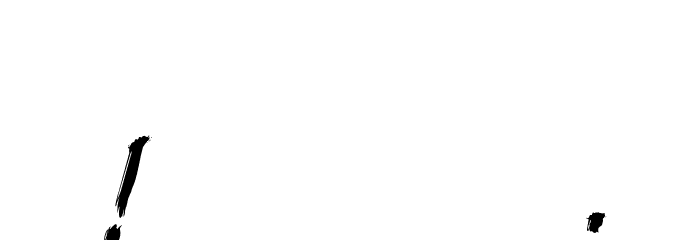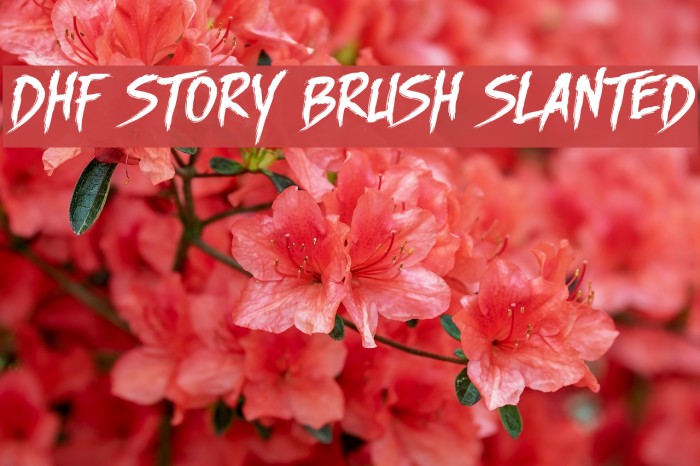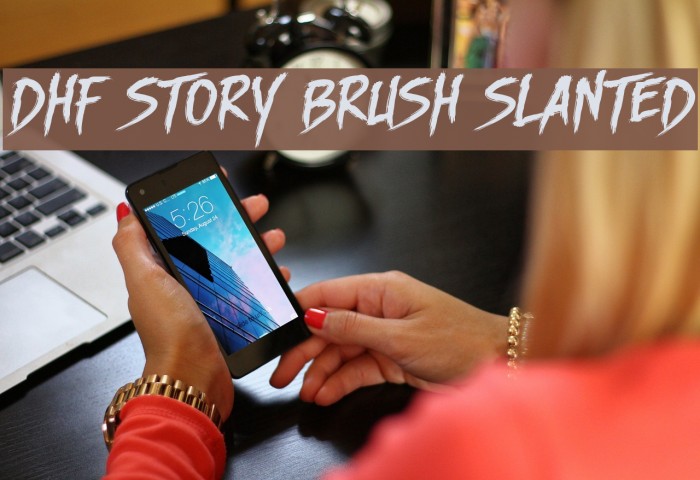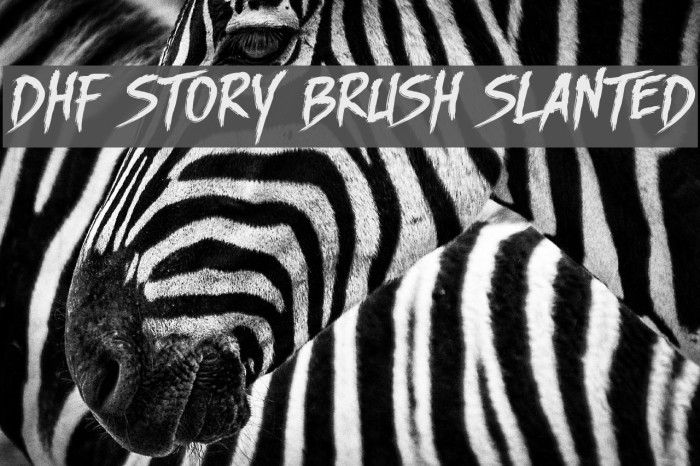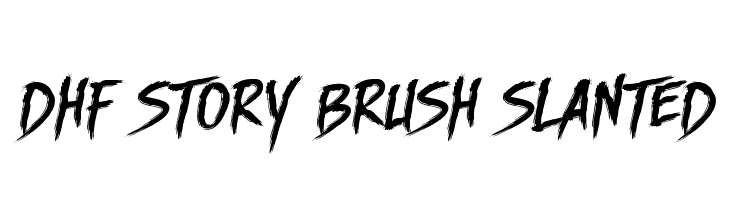
DHF Story Brush Slanted Font
This font features a dynamic and energetic brush style, characterized by its bold and expressive strokes. The letters are slanted, giving a sense of movement and fluidity, reminiscent of hand-painted signage or graffiti art. The uppercase and lowercase letters maintain a consistent style, with sharp edges and varying stroke widths that add a sense of depth and texture. The numbers and special characters are equally expressive, ensuring a cohesive look across all text elements. This font is ideal for projects that require a bold, artistic touch.
A bold, slanted brush-style font with dynamic and expressive strokes.
- Proposed Projects: Ideal for posters, album covers, branding, and any project needing a bold, artistic flair.